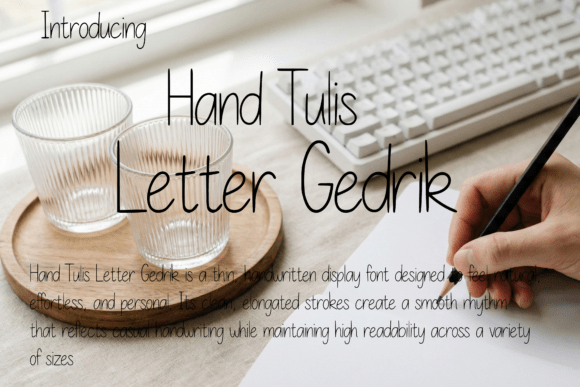
Hand Tulis Letter Gedrik Font for Authentic Campaigns
Last Tuesday at 10 PM, I was staring at a carousel draft for an upcoming artisanal coffee launch, and something felt wrong. The product photography was warm and textured, the copy was punchy, but the typography looked sterile. It was too perfect, too digital, and completely disconnected from the handcrafted story we were trying to tell. This is the exact moment where Hand Tulis Letter Gedrik saves the campaign. As marketers and creators, we often get stuck in the trap of using safe, generic typefaces that blend into the feed rather than stopping the scroll. Switching to this handwritten display font didn't just fix the aesthetic; it realigned the entire visual strategy with the brand’s authentic voice.
Bridging the Gap Between Digital Polish and Human Touch
In modern digital marketing, there is a constant tension between professional polish and personal connection. Audiences are becoming increasingly adept at spotting overly manufactured content. When designing for lifestyle brands, creative courses, or community-driven campaigns, you need typography that feels like it was written by a person, not generated by a machine. Hand Tulis Letter Gedrik sits perfectly in this sweet spot. It is a thin, handwritten display font designed to feel natural, effortless, and personal without sacrificing legibility.
Unlike many script fonts that prioritize elaborate flourishes over readability, Gedrik uses clean, elongated strokes. This creates a smooth rhythm that reflects casual handwriting while maintaining the structural integrity needed for commercial design. When I applied it to our coffee launch headers, the text didn't compete with the imagery; it breathed with it. The verticality of the letterforms allowed for tight tracking in headlines, making it ideal for mobile-first layouts where horizontal space is precious. It transformed a standard promotional post into what looked like a personal note from the founder, instantly increasing perceived authenticity.
Strategic Application Across Social Platforms
Versatility is non-negotiable when building a cohesive campaign across multiple touchpoints. You cannot use a different font personality for every platform, or your brand identity will fracture. Hand Tulis Letter Gedrik has proven to be a reliable workhorse across various digital assets because its thin weight remains crisp even when scaled down.
- Instagram Carousels and Reels Covers: The elongated nature of the font allows for impactful stacking. On a 4:5 carousel slide, you can fit three lines of large, expressive text without overwhelming the background image. For Reels covers, it provides enough contrast against busy video thumbnails to remain readable in the grid view.
- Pinterest Pins: Pinterest is a visual search engine where text overlays drive clicks. Gedrik’s distinct character shapes stand out against the sea of bold sans serifs typically found on the platform. Its handwritten vibe signals "inspiration" and "ideas," which aligns perfectly with user intent.
- YouTube Thumbnails: Readability at small sizes is the ultimate test. Because Gedrik avoids messy ligatures and excessive swashes, it remains decipherable even on mobile screens. It works exceptionally well for vlog titles, tutorial labels, or emotional hooks that need to feel intimate rather than clickbaity.
- Email Marketing Headers: Inboxes are cluttered. A handwritten font in a subject line preview or email banner breaks the monotony of standard system fonts. Using Gedrik for seasonal greetings or personalized offers increases the perception of a one-to-one communication channel.
Mastering Visual Hierarchy and Mobile Readability
A beautiful font is useless if it fails functionally. One of the primary reasons I keep returning to Hand Tulis Letter Gedrik in my design workflow is its behavior on dark backgrounds and low-resolution previews. Thin fonts can sometimes disappear or pixelate on social media compression, but Gedrik’s stroke consistency holds up remarkably well. When designing for fast-scrolling feeds, you have milliseconds to convey meaning. The open counters and generous x-height ensure that words like "Sale," "New," or "Guide" are recognized instantly before the user processes the stylistic details.
However, restraint is key. This typeface shines brightest when used for short headlines, callouts, logo-style text, and decorative titles. It is not a body copy font. Attempting to set paragraphs in any display script will destroy readability and frustrate users. Instead, treat Gedrik as the spotlight actor and pair it with a supportive ensemble cast. For body text, captions, and disclaimers, use a clean geometric sans serif or a highly legible serif font. This contrast amplifies the personality of the handwritten elements while ensuring accessibility and information clarity. The interplay between the organic flow of Gedrik and the structured stability of a sans serif creates a modern typography system that feels both curated and approachable.
Technical Considerations for Commercial Campaigns
Additionally, explore the full character set before finalizing your designs. Premium font files often include alternates, ligatures, and multilingual support that can elevate your editorial design. Access to alternate characters allows you to avoid repetitive letterforms in longer phrases, maintaining the illusion of genuine handwriting. Checking file formats is equally important; ensure you have OTF or TTF files for desktop design software and WOFF2 files for web design implementation. Having these assets organized in your design system prevents bottlenecks when you need to quickly adapt a campaign for a new format or language market.
In my recent campaign workflow, switching to this specific handwritten display font reduced the time spent on revisions. Stakeholders immediately understood the mood because the typography did the heavy lifting. It removed the friction between the concept and the execution. For digital marketers and content creators tired of the same rotation of trendy bold sans serifs, Gedrik offers a refreshing alternative that balances artistic expression with commercial viability. It proves that you do not have to sacrifice professionalism to achieve warmth, and you do not have to sacrifice readability to achieve style. By treating typography as a core component of your campaign strategy rather than an afterthought, you create visuals that resonate deeper and perform better in an increasingly crowded digital landscape.